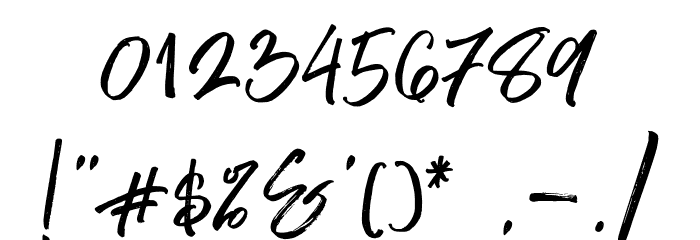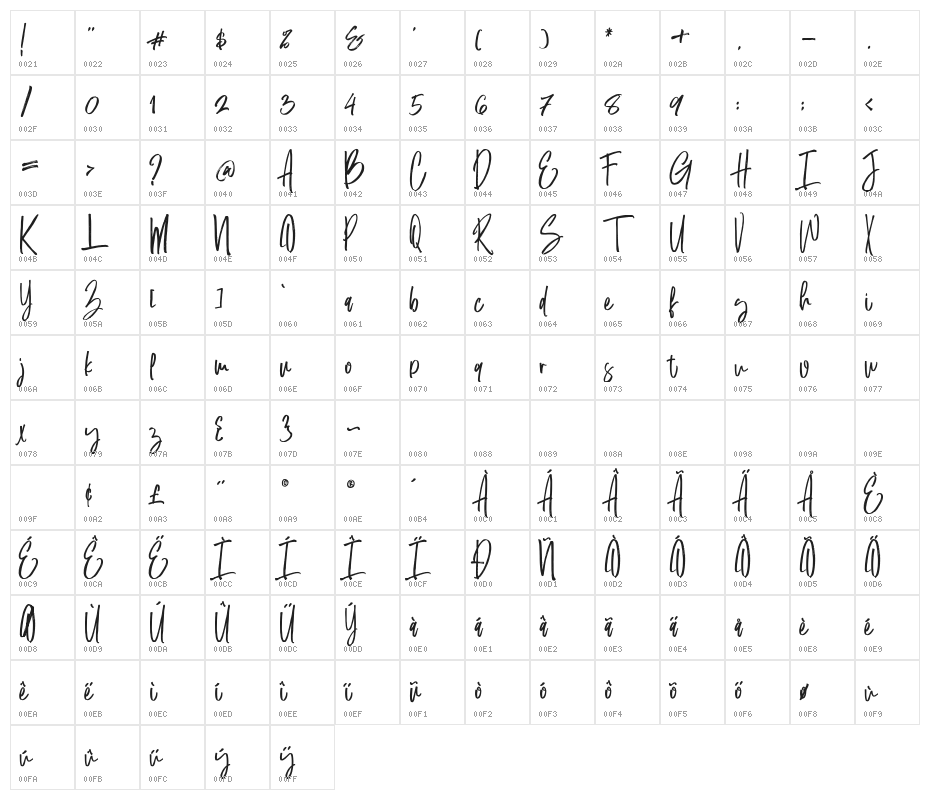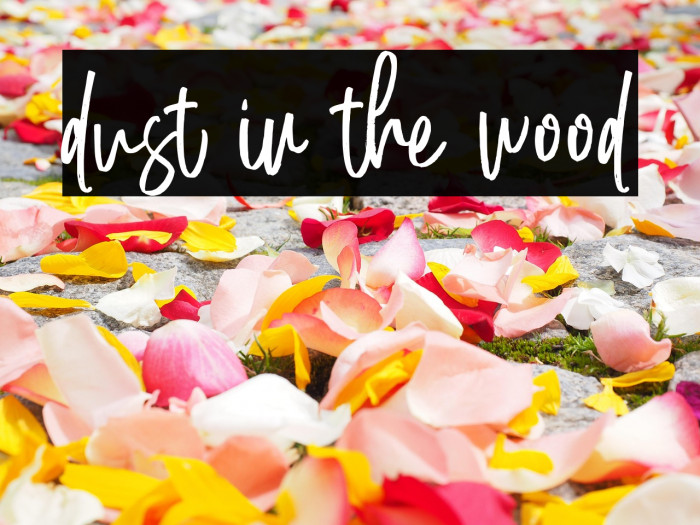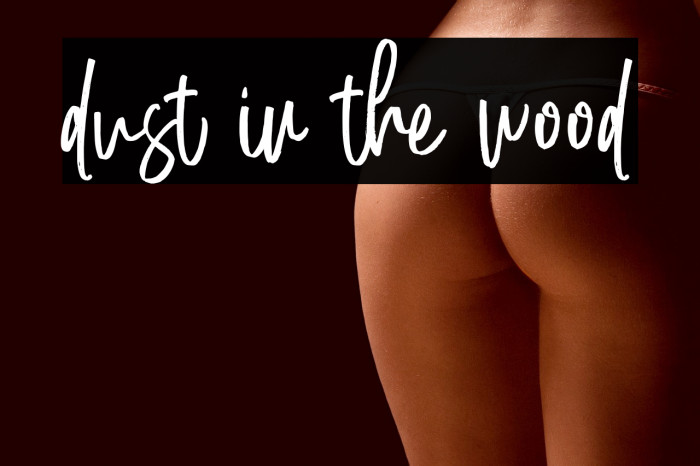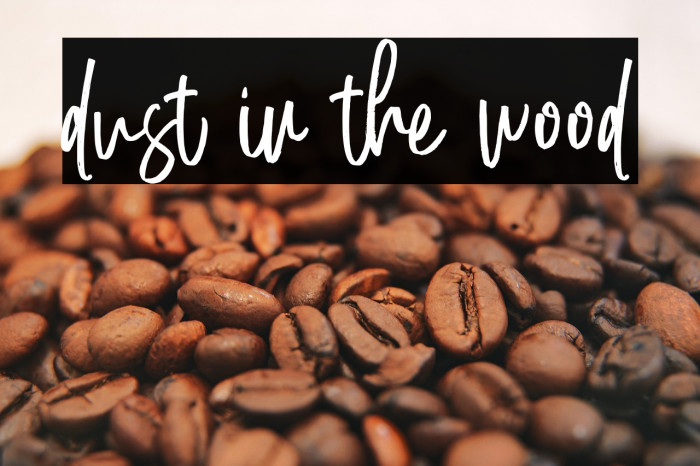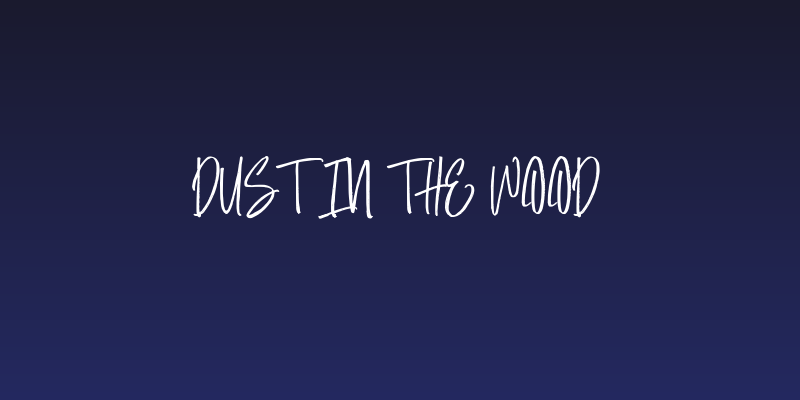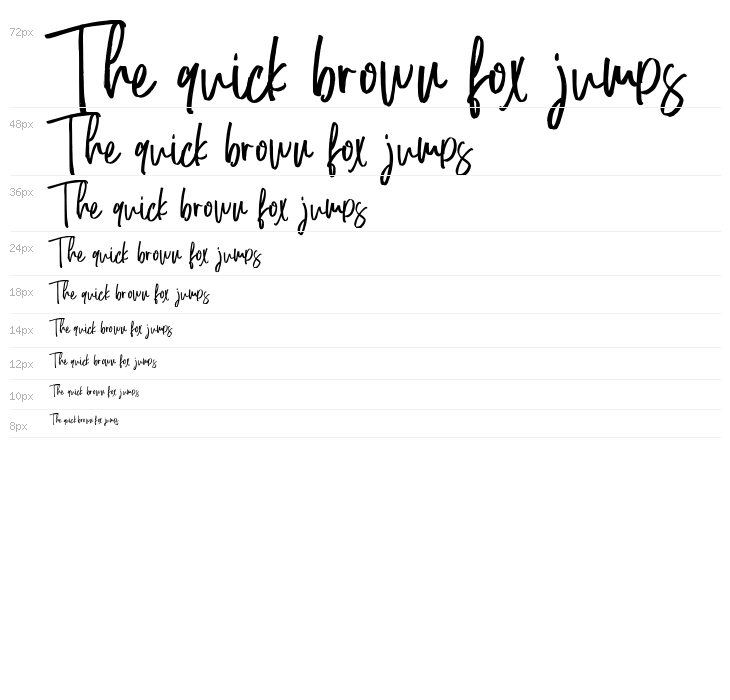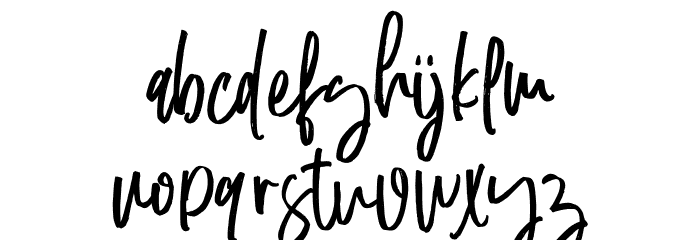
dust in the wood Font
dust in the wood Description
This font exhibits a dynamic and expressive handwritten style, characterized by its fluid and organic strokes. The uppercase letters are tall and narrow, with a playful and slightly chaotic arrangement, while the lowercase letters maintain a consistent flow with a more relaxed and casual appearance. The numerals and special characters follow the same energetic and spontaneous design, making the font suitable for creative and informal applications. The overall aesthetic is modern and artistic, with a touch of whimsy that adds personality to any project.